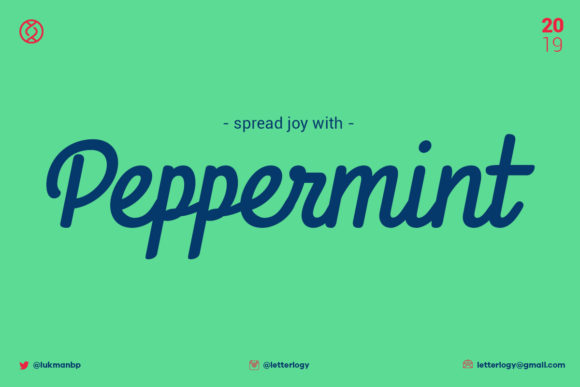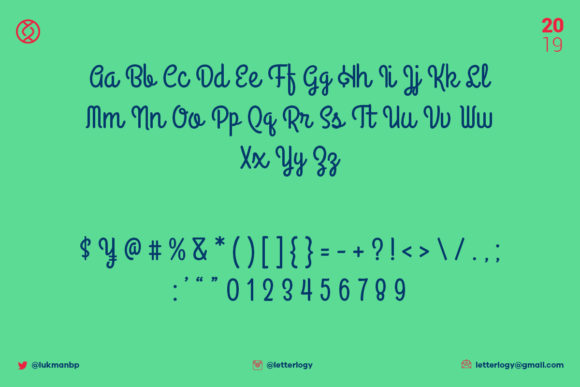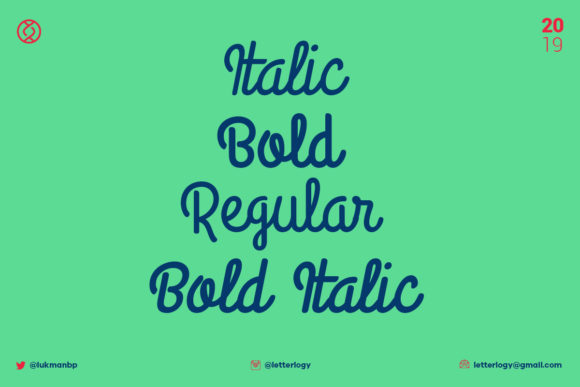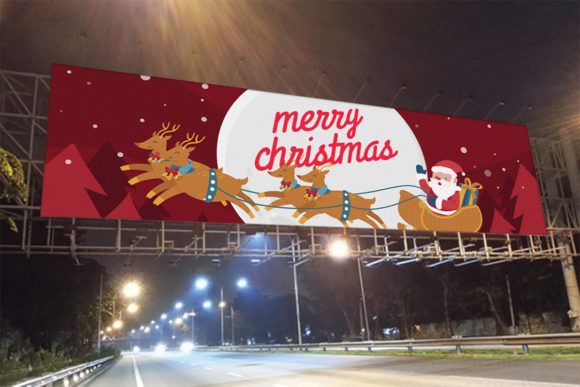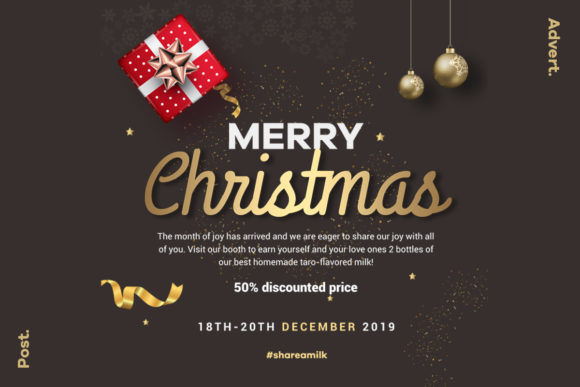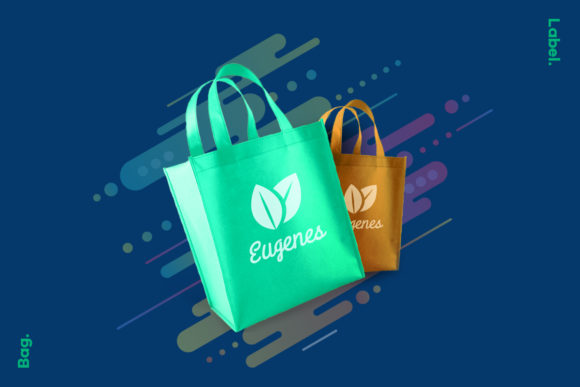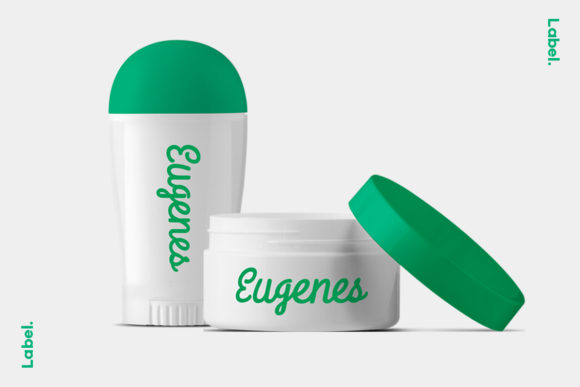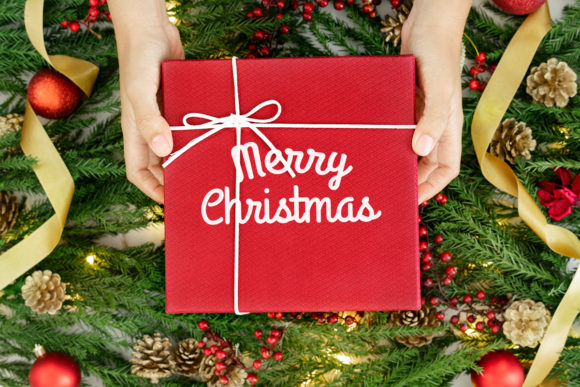
HomeScript FontsPeppermint Font Script Fonts Peppermint Font FacebookXPinterestWhatsApp Peppermint Font Poster 2 Peppermint Font Poster 3 Peppermint Font Poster 4 Peppermint Font Poster 5 Peppermint Font Poster 6 Peppermint Font Poster 7 Peppermint Font Poster 8 Peppermint Font Poster 9 Peppermint Font Poster 10 About Peppermint Font Peppermint is fresh and christmas-y font that’s designed to spread joy. Fall in love with its sweet look! DOWNLOAD NOW People also explored Challiren Font Chicken Turkey Crocodile Font Beauty California Font Sunshine Font Hello Killyna Font My Name is Pomello Font Bontang Font Vanessa 340 0 TagsPeppermint Font Previous articleBenoday FontNext articleArabella Font LEAVE A REPLY Cancel reply Comment: Please enter your comment! Name:* Please enter your name here Email:* You have entered an incorrect email address! Please enter your email address here Website: Save my name, email, and website in this browser for the next time I comment. Personal Use Free JVNE Smoothdron Personal Use Free Read more about this font Adriator Personal Use Free Read more about this font Bajt Rounded Personal Use Free Read more about this font Love Ya Personal Use Free Read more about this font BLOG Free Fonts Risk: Why Free Fonts Can Be Dangerous for Designers Free Fonts Risk: Why Free Fonts Can Be Dangerous for Designers Using free fonts is a common practice in web and graphic design. However, the... How to Install and Use Fonts on Windows, macOS, and Web Projects Best Fonts for T-Shirt Design – Top 2025 Picks Elegant Wedding Invitation Fonts – Handwritten & Script Fonts